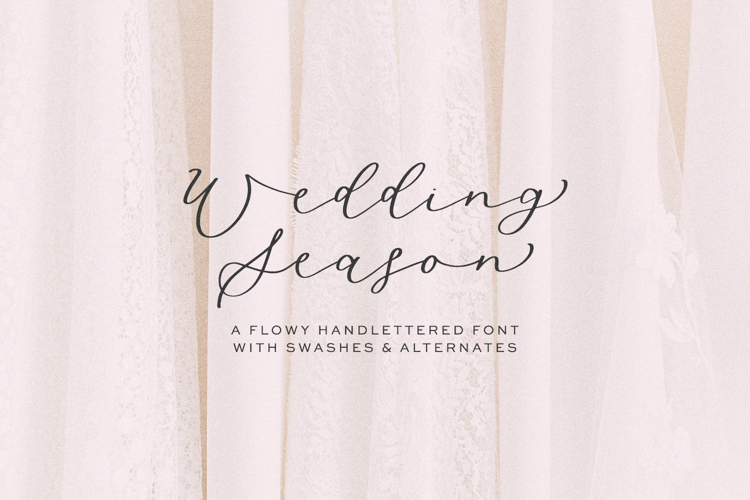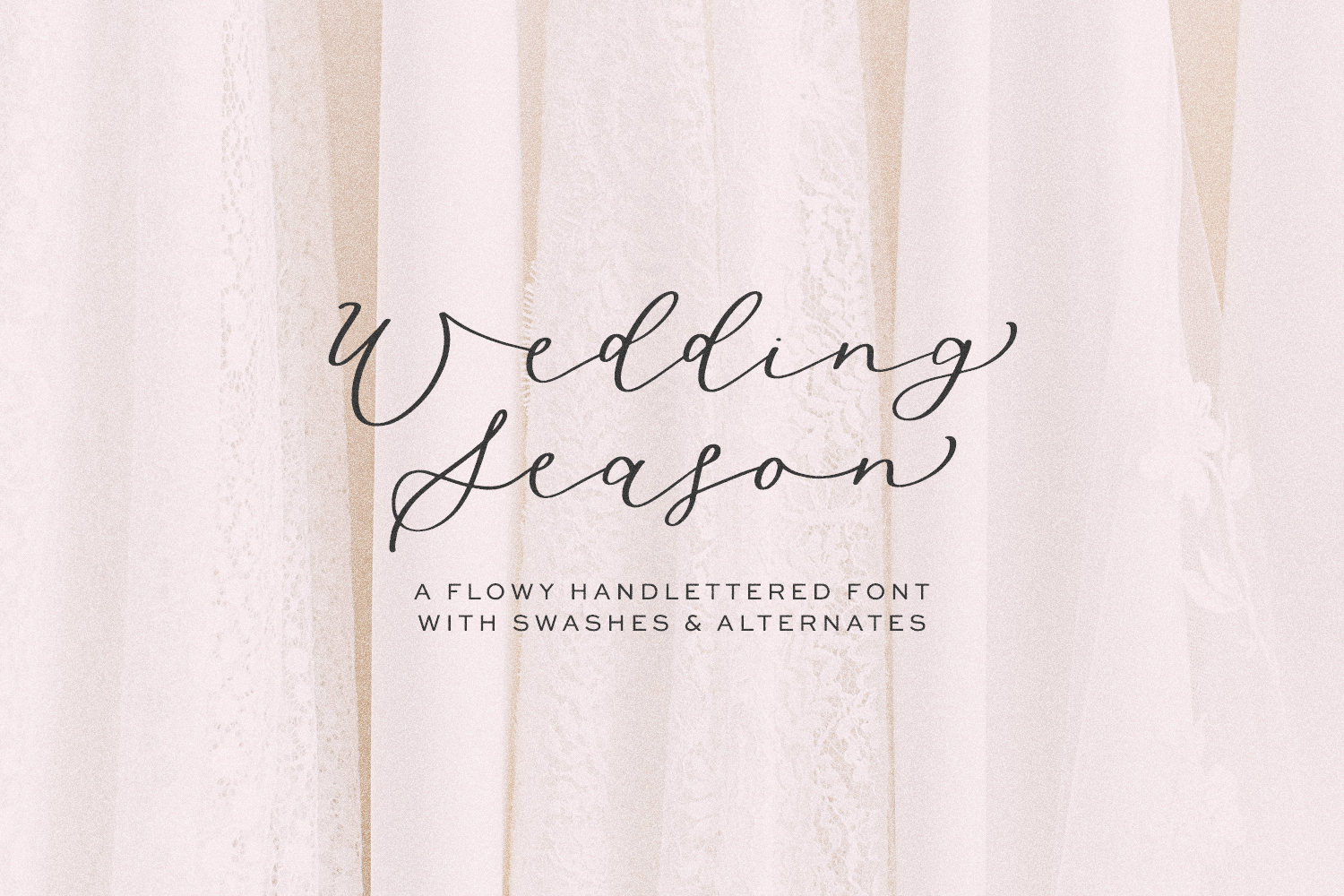
Wedding Season Script
Introducing Wedding Season, a modern calligraphy script. Wedding Season is flowy and feminine, with a handwritten quality. Wedding Season Script includes some flourished alternate characters, and three sets of left and right swashes.
- 11 lowercase alternate characters
- 3 sets of left and right swashes